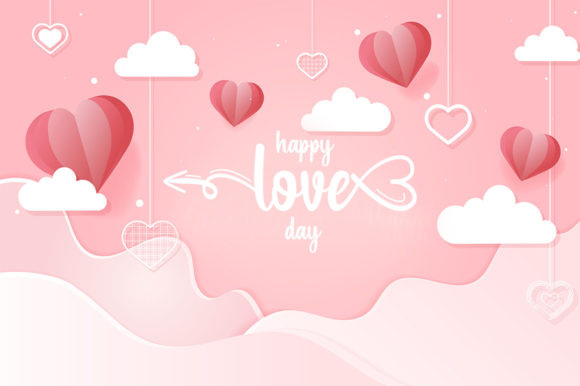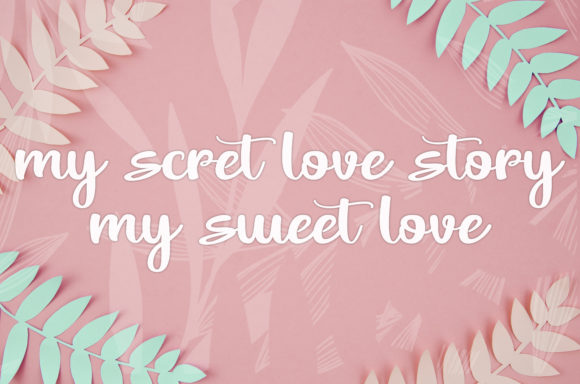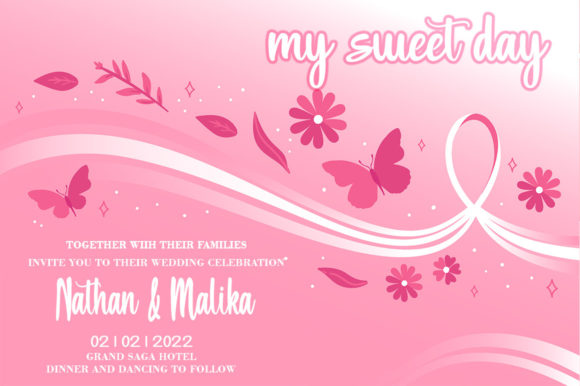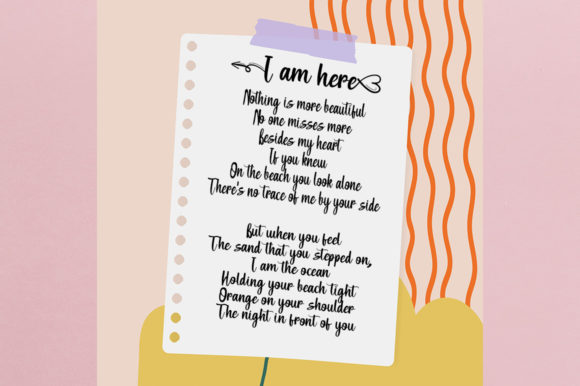
Cantika Font: Elevate Your Designs with Elegance and Sophistication
In the world of typography, a font can make or break a design. For designers and crafters seeking to add a touch of elegance and sophistication to their projects, Cantika Font is an exceptional choice. This beautiful and refined script font is designed to elevate your creations, making them stand out with its unique charm and character.
What Makes Cantika Font Special?
Cantika Font is not just another script font; it’s a masterpiece crafted with precision and attention to detail. Here are a few features that set it apart:
- PUA Encoding: Cantika Font is PUA (Private Use Area) encoded, which means you can access all the glyphs and swashes with ease. This feature allows for greater flexibility and creativity in your designs, making it easier to incorporate the perfect combination of characters and swashes to match your aesthetic.
- Beautiful and Refined: The font boasts a beautiful and refined design, characterized by elegant lines and curves. Its sophisticated look makes it perfect for projects that require a high level of elegance and poise.
- Versatility: Whether you’re working on a branding project, crafting beautiful wedding invitations, or designing unique packaging, Cantika Font adapts seamlessly to various design needs. Its versatility is one of its most compelling features, making it a valuable addition to any designer’s toolkit.
Applications of Cantika Font
The applications of Cantika Font are vast and varied. Here are a few examples of how you can use this exquisite font in your projects:
- Branding and Logos: Create a lasting impression with a logo that exudes elegance and sophistication. Cantika Font’s unique characters can help your brand stand out in a crowded marketplace.
- Wedding and Event Stationery: Add a touch of romance and elegance to your wedding invitations, save-the-dates, and other event stationery with Cantika Font. Its beautiful script and swashes will make your designs truly unforgettable.
- Packaging Design: Elevate your product packaging with a font that speaks luxury and quality. Cantika Font can help you create packaging that not only stands out on store shelves but also communicates your brand’s high-end aesthetic.
- Digital and Print Media: From social media graphics to print advertisements, Cantika Font can add a level of sophistication and elegance to your digital and print media, making your content more engaging and visually appealing.
Tips for Using Cantika Font Effectively
To make the most of Cantika Font, here are a few tips to keep in mind:
- Pair it Wisely: Cantika Font pairs beautifully with clean and simple sans-serif fonts. Experiment with different combinations to find the perfect balance for your design.
- Experiment with Swashes: Take advantage of the font’s swashes to add flair and personality to your designs. Swashes can be used to create beautiful connections between words or to add decorative elements to your layout.
- Consider Readability: While Cantika Font is elegant and beautiful, ensure that it’s used in a way that maintains readability. This is especially important for body text, where clarity and legibility are paramount.
Cantika Font is a stunning script font that offers designers and crafters a unique opportunity to elevate their projects with elegance and sophistication. Its PUA encoding, beautiful design, and versatility make it an excellent choice for a wide range of applications. By incorporating Cantika Font into your designs, you can create visually stunning and memorable pieces that leave a lasting impression. Whether you’re a professional designer or a DIY crafter, Cantika Font is sure to become a valuable asset in your creative toolkit.